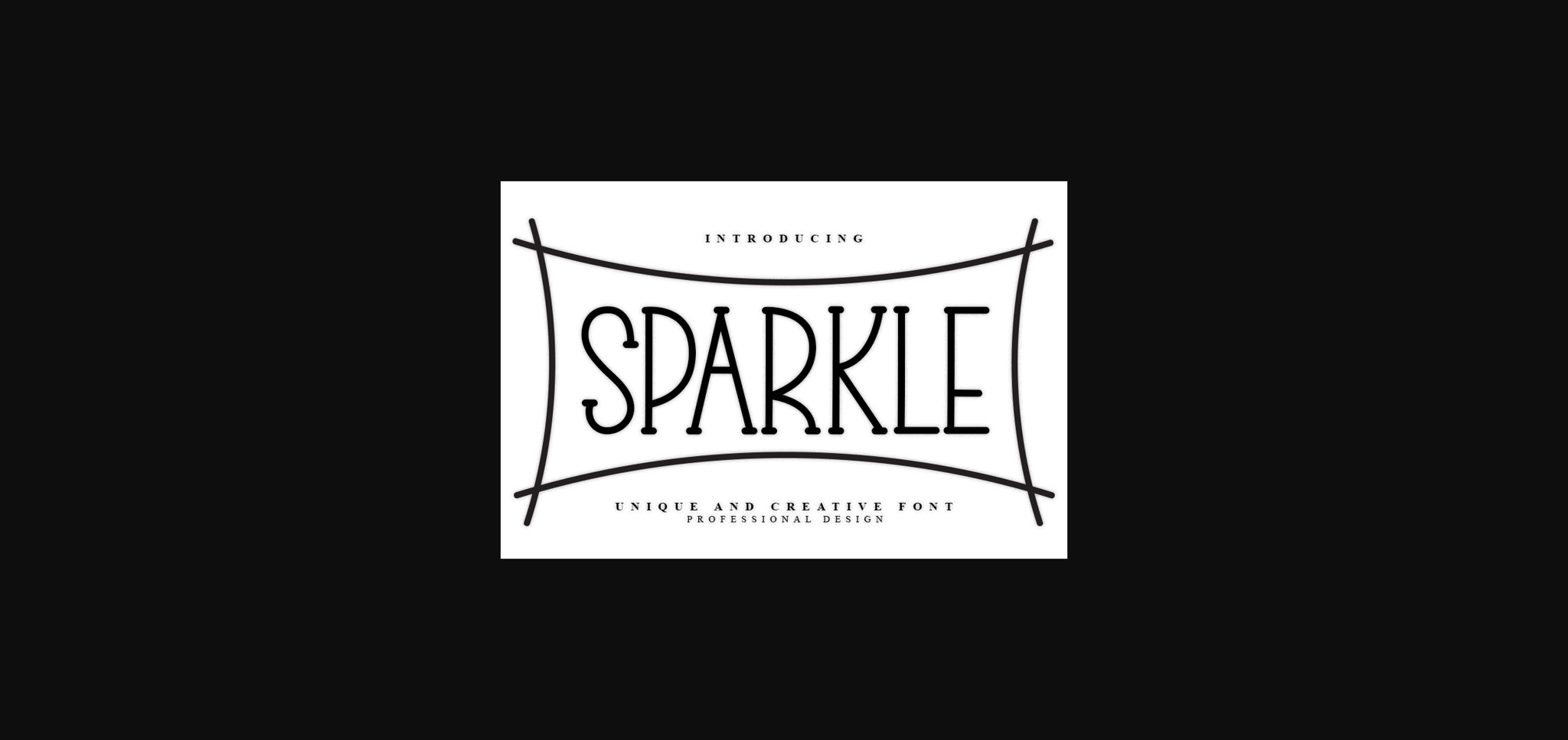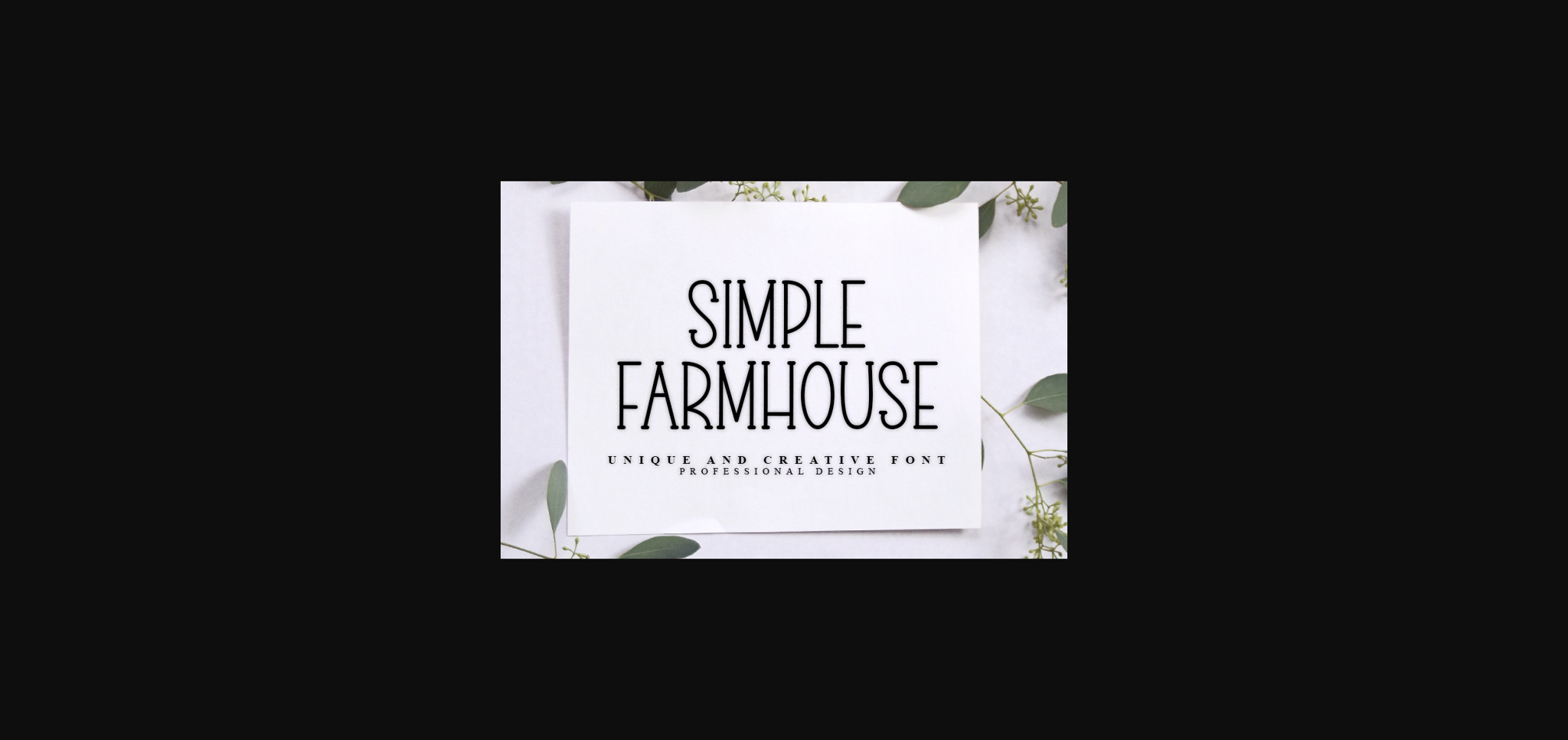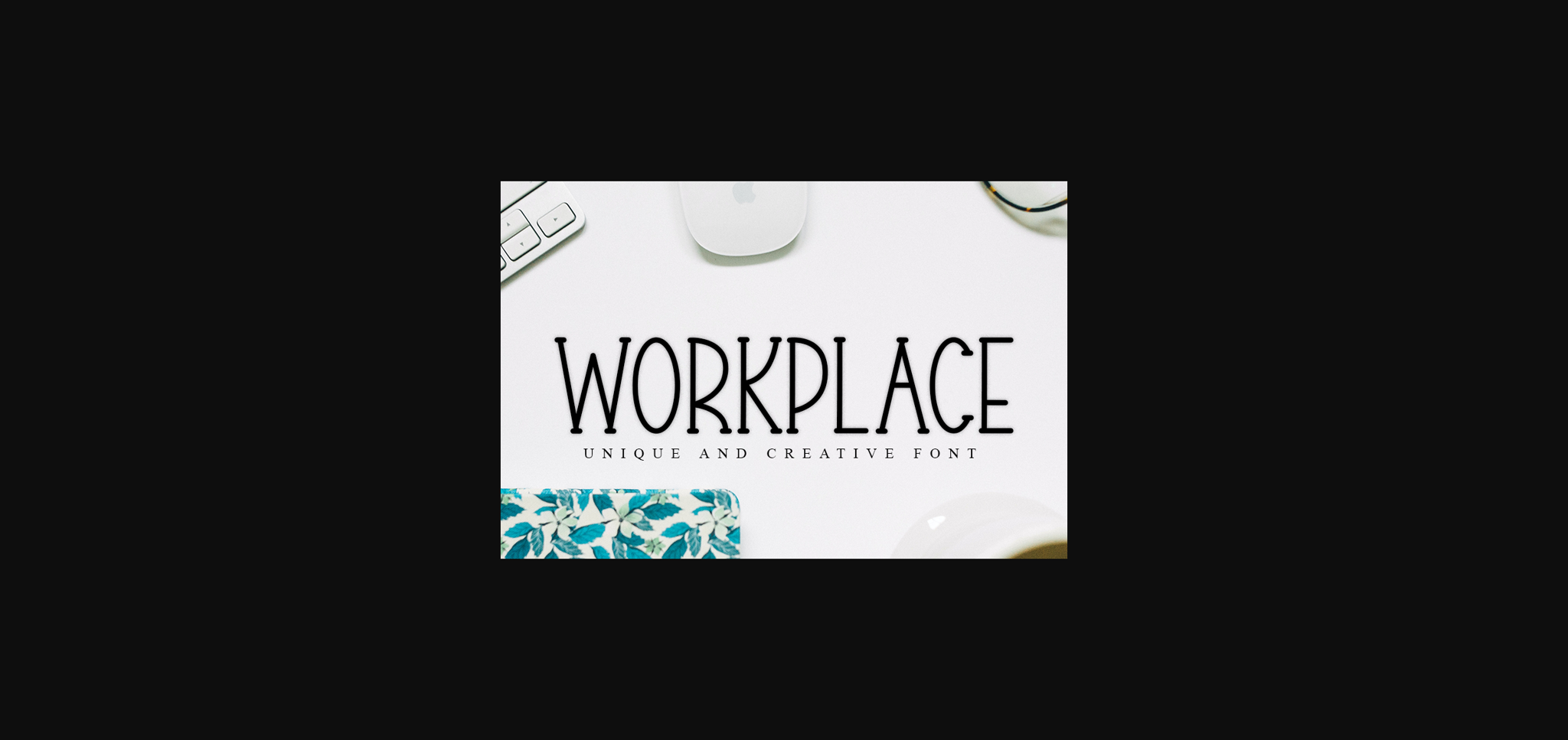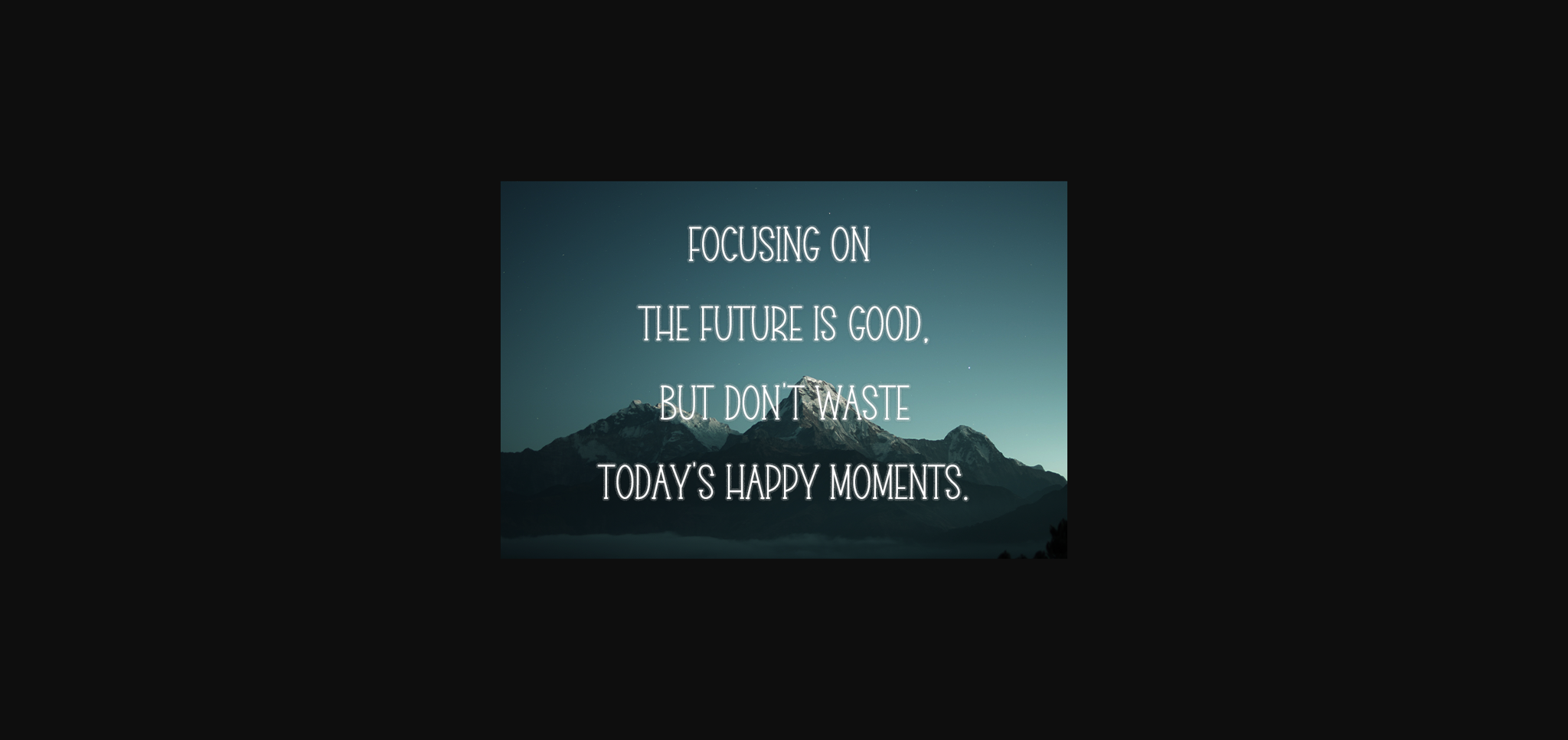
Sparkle is a cool and modern sans-serif font. Whether you’re using it for crafts, digital design, presentations, or making greeting cards, this font has the potential to become your go-to.